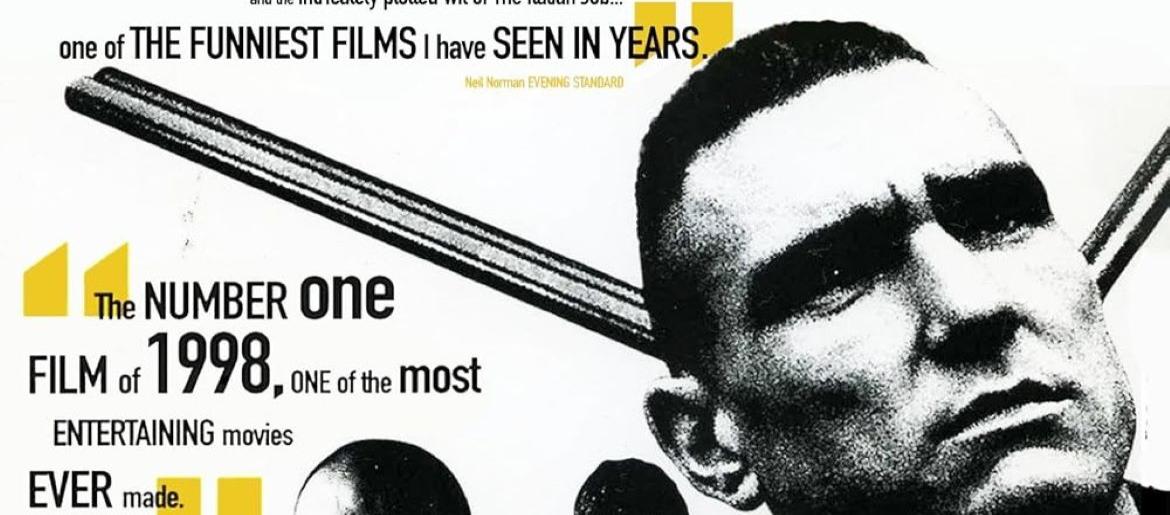
Lock, Stock and Two Smoking Barrels Font
The Lock Stock and Two Smoking Barrels Font embodies the gritty, streetwise edge of Guy Ritchie’s 1998 crime classic. Bold, angular, and slightly distressed, it mirrors the film’s chaotic world of London’s underground crime scene. The typography feels raw and unrefined, echoing the movie’s sharp humor, fast-paced storytelling, and unpredictable twists. The original design closely resembles bold stencil-inspired sans-serif styles—tough, urban, and full of attitude. While the exact font isn’t officially named, several free alternatives capture the same rugged, rebellious energy, making them perfect for poster art, action titles, or urban-themed branding.
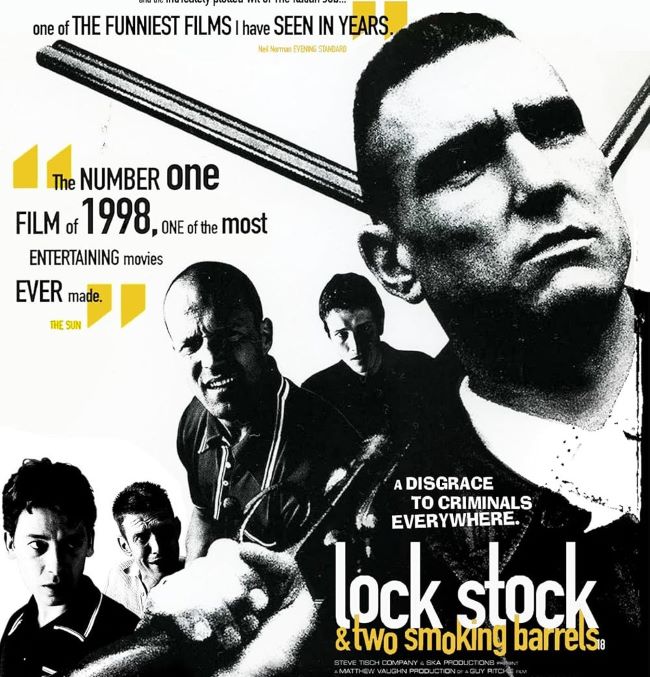
About Lock, Stock and Two Smoking Barrels
Released in 1998, *Lock, Stock and Two Smoking Barrels* is a British crime comedy directed by Guy Ritchie and starring Jason Flemyng, Dexter Fletcher, Nick Moran, and Vinnie Jones. The film follows a group of small-time criminals caught in a web of gambling debt, heists, and double-crosses. Known for its sharp dialogue, clever editing, and distinctive visual style, it became a defining moment in British cinema—launching Ritchie’s career and setting a new standard for modern gangster films.